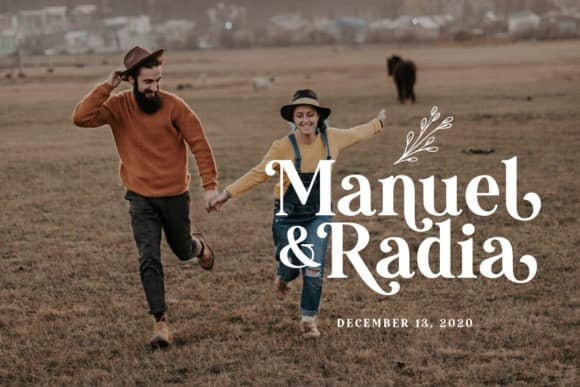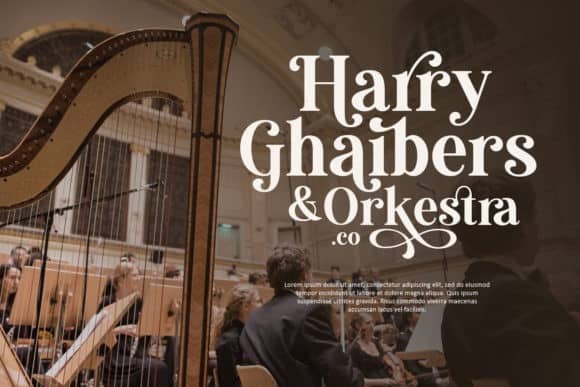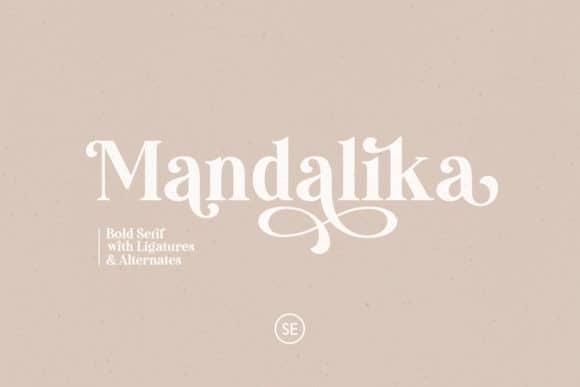
Mandalika Serif Font
Mandalika Serif Font is an elegant, unique font that uses Alternates to smoothly link letters. Made from font designer named Saridezra. Mandalika typeface with a bunch of ligatures and alternates that will make your presentation or logo even more stunning and stand out! Mandalika also support Multi Language. and already PUA Encoded!